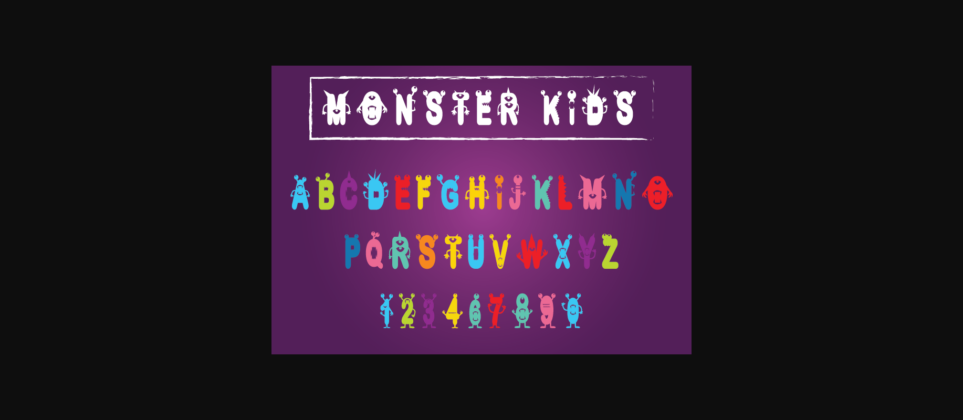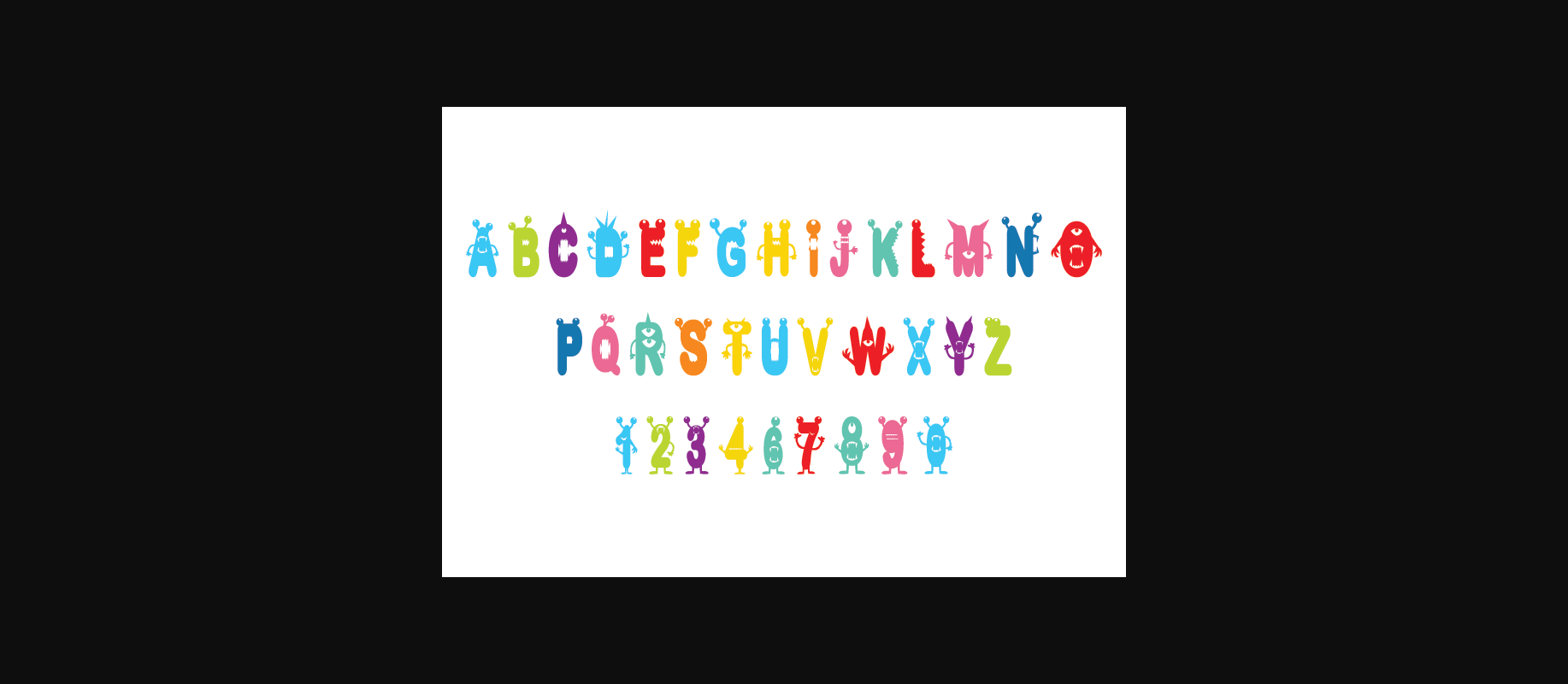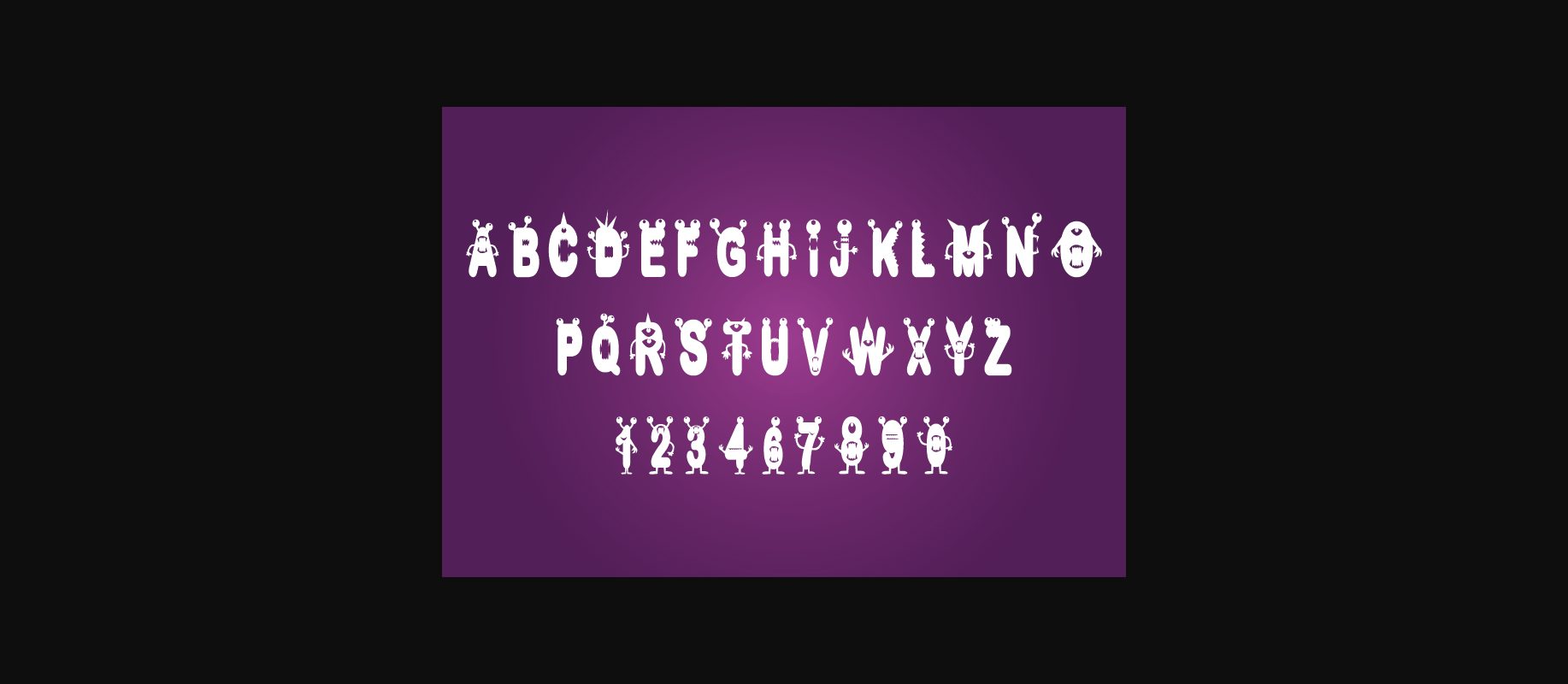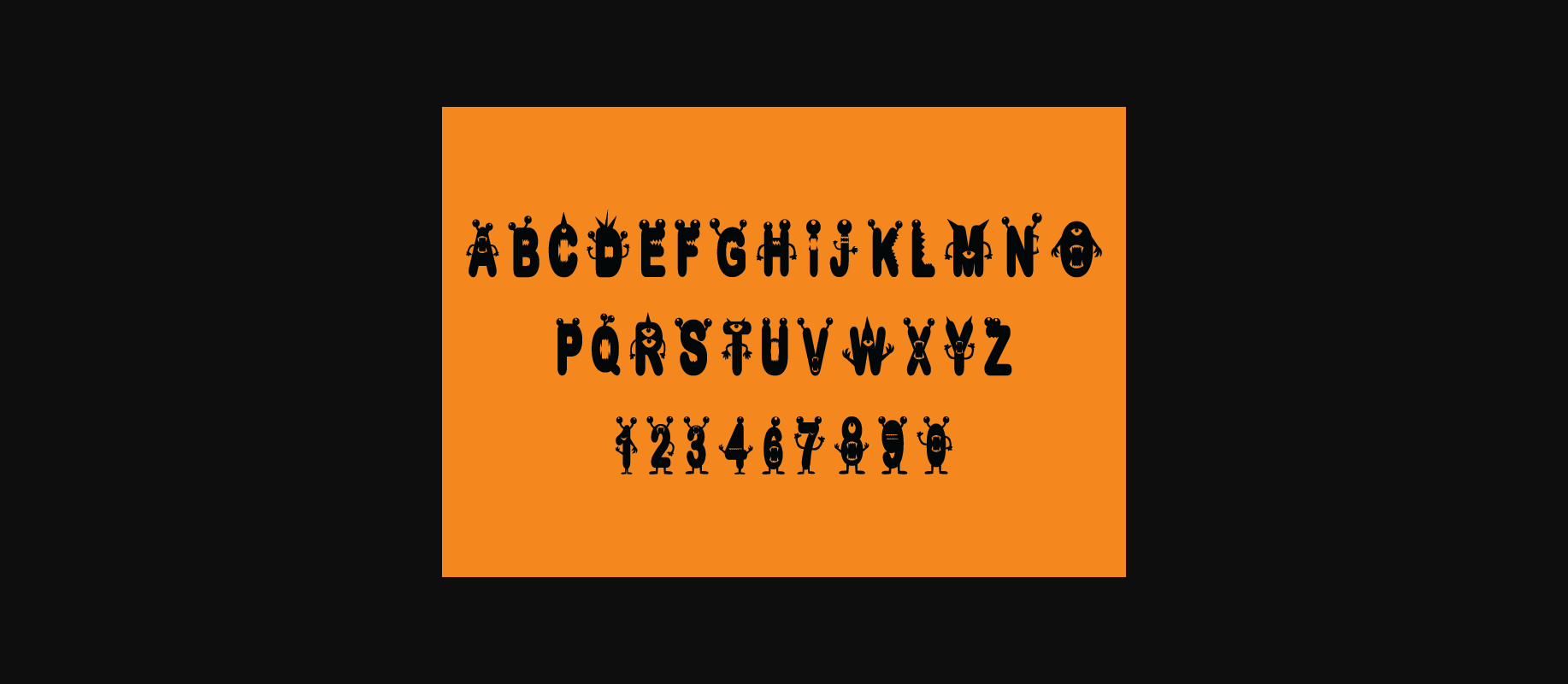
About Monster Kids Font
Monster Kids is a decorative font bursting with playful charm, perfect for adding a touch of whimsy to any design. Each letter is creatively crafted, with fun shapes and quirky details that evoke a sense of childlike wonder. This font is ideal for children’s books, invitations, and any design that needs a dash of playful personality.